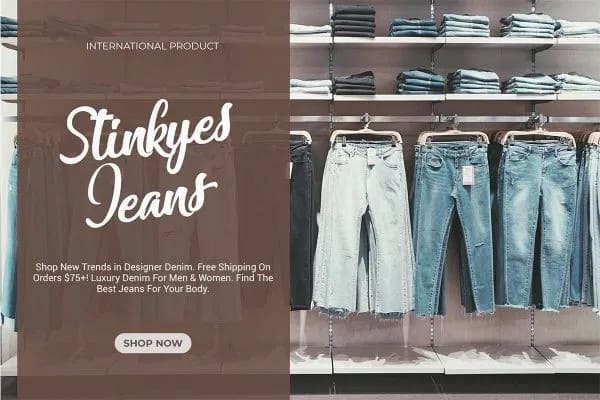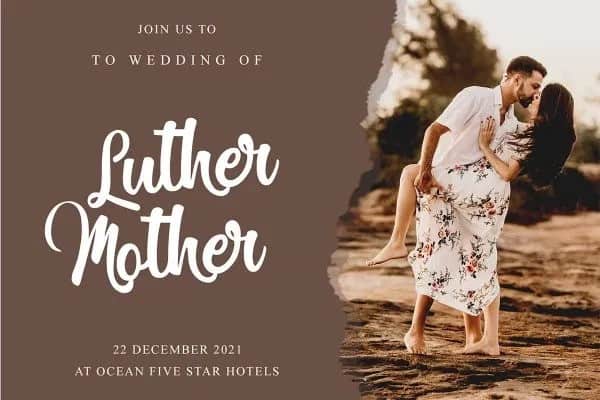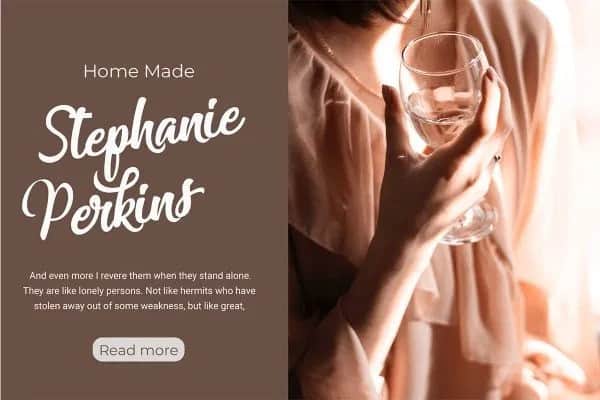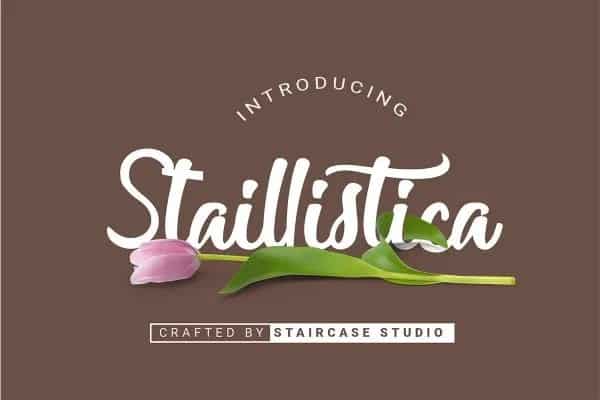
Introducing a new font called Staillistica Script Font inspired by urban script fonts with sharp and beautiful letters that create fonts that are modern, tendy and elegant. It’s designed and shared by Staircase Studio. A collection of letters and numbers suitable your projects also great for Logotype, Branding Design, Logo Design, Digital Lettering Arts, T-Shirt/Apparel, Poster, Magazine, Signs, Advertising Design, and any design needs.